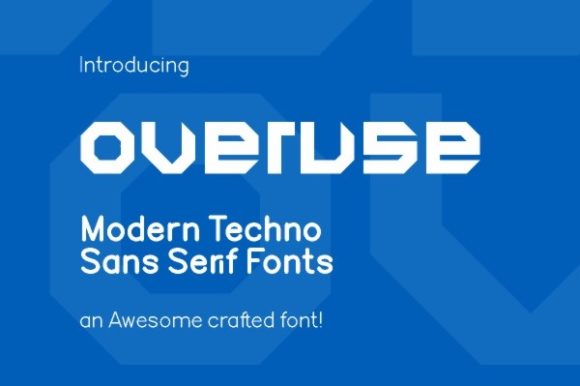
Unveil the captivating allure of Overuse, a groundbreaking display font that will ignite your creative spark and propel your designs into the stratosphere of modern aesthetics. Crafted by the visionary Imagi Factory, Overuse is the ultimate weapon in your typographic arsenal, empowering you to forge unforgettable visual experiences that will leave an indelible mark on your audience.
Immerse yourself in Overuse's futuristic allure, where sharp angles dance harmoniously with fluid curves, creating a symphony of visual intrigue. Each character is a masterpiece of digital craftsmanship, meticulously designed to evoke a sense of innovation and cutting-edge style that will set your designs apart from the mundane.
Unlock the full potential of Overuse's PUA encoding, granting you effortless access to a treasure trove of glyphs and swashes. Unleash your limitless creativity, weaving intricate typographic tapestries that will captivate and enchant your viewers.
Indulge in the audacious spirit of Overuse and witness the transformation of your designs. From sleek and sophisticated logos to eye-catching social media graphics, Overuse will elevate your visual storytelling to new heights. Its versatility knows no bounds, making it the perfect choice for a myriad of creative endeavors.
Step into a world where typography transcends the ordinary and embraces the extraordinary. Embrace Overuse, the font that will redefine your creative vision and ignite an unquenchable passion for design. Let your imagination soar on the wings of Overuse, and prepare to leave an enduring legacy in the annals of visual artistry.